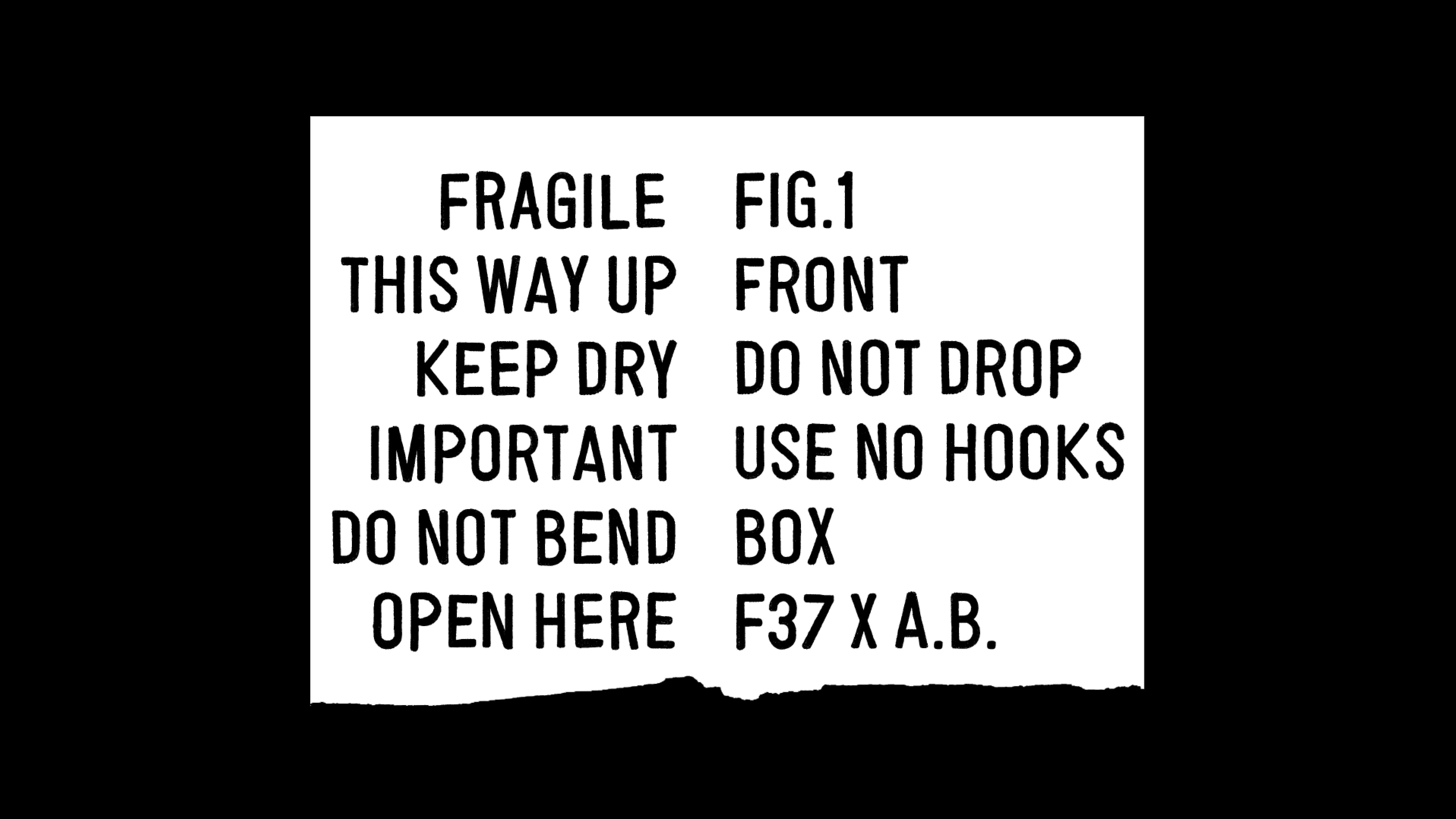
F37 Box
Anthony Burrill finds inspiration in what we discard. Lining back alleys, warehouses and dishevelled dormitories, cardboard boxes are universally under appreciated.
Inspired by the rough, industrial printing seen on cardboard boxes, F37 Box mimics this with a textured outline. The variable font contains both a bounce and twist variable axis. This allows the user dial in the desired amount of haphazardness by controlling the baseline bounce and letter rotation. Each glyph contains three similar, but not identical alternates forms that cycle through. All this combines together to give a convincing replication of these rough and un-designed functional letter forms.
F37® × Anthony Burrill
The Designer
Graphic artist Anthony Burrill combines a knack for simplicity that packs a punch with analogue craft skills and powerful, positive messages.
Burrill frequently collaborates with other forward-thinking creatives across disciplines spanning music, architecture, curation, education protest and more; pushing his traditional discipline of choice, letterpress printing, into bold new territories. Whether working on an art school pavilion, an acid house record, a book or a poster design, Burrill’s work is instantly recognisable. While his pieces all bear the marks of his letterpress process and all its joyful idiosyncrasies, Burrill’s direct and multidisciplinary approach is one that’s constantly evolving, combining tradition with bold new approaches and technologies. Words, gentle humour, no-nonsense communication and people are at the heart of Burrill’s practice and his distinctive brand of upbeat messaging: its core DNA is one created through a longstanding passion for creativity without limitations, the power of simplicity and an innate curiosity about the world and people in it. His work is held in the permanent collections of the V&A and The Design Museum in London, The Cooper-Hewitt in New York and has been exhibited in galleries around the world including The Barbican Gallery in London, The Walker Art Center in Minneapolis, The Triennale in Milan and The Stedelijk Museum in Breda.
Interview
Tell us about the inspiration behind your collaboration with F37®×. If it was an unused concept, what was the potential use case for it.
It was the day before the re-cycling was being collected and I was busy sorting through boxes and breaking them down. The idea for a new typeface had been in my head since I received the request from F37®. Inspiration can be quite elusive and you have to be on the look out constantly. As I was breaking down a particularly large box I noticed the crudely printed lettering. I’ve always been a huge fan of utility packaging type and imagery. I love the raw quality of the letterforms and the awkward layouts found on this kind of throwaway packaging. I was lucky with this box, it had lots of words printed that included almost all the letters of the alphabet. I cut out the bits of the packaging I needed and took it back to my studio where I scanned it in and managed to create the missing letters with the information I had available. I sent the scans over to F37® and they did an amazing job of developing the rest of the missing glyphs and giving life to the letters using the shifting baseline and angles.
When starting the process of creating your font, what typographic conventions did you look to break or experiment with? Or were there conventions of functionality you championed?
I wanted to make something that felt raw and characterful and had the immediate quality of type found on cardboard boxes. These typefaces aren’t intended to be examples of high end design. They are everyday utilitarian typefaces that simply convey technical information. They aren’t meant to look pretty of communicate any particular tone of voice, they are simply there to tell us to not drop the box, open carefully and do not crush. The type is there to give instructions as plainly and simply as possible. This is the kind of visual communication that I find most inspiring. It’s the overlooked and undervalued that often has the most to say. It’s not polished or crafted any more than it needs to be. It’s honest in how it speaks and says what it needs to say.
Now that your typeface has launched, what would be your dream project to use your F37® typeface on?
I’d like to use it to create a huge piece of word art on the side of a building. Somewhere unusual, maybe out of the way and unexpected. The ideal place to create a piece of work that engages with a new audience.
What have you learnt through developing and creating your own typeface(s) with our F37® type designers?
Never to overlook the things that are part of our every day life. Inspiration is everywhere and strikes with most potency when we’re least expecting it.
How would you describe your typeface in three words?
Raw, characterful, playful.